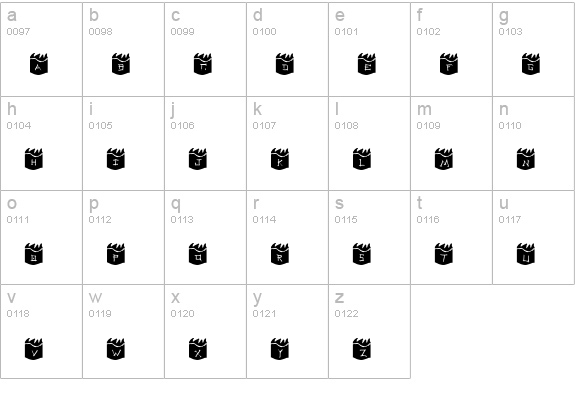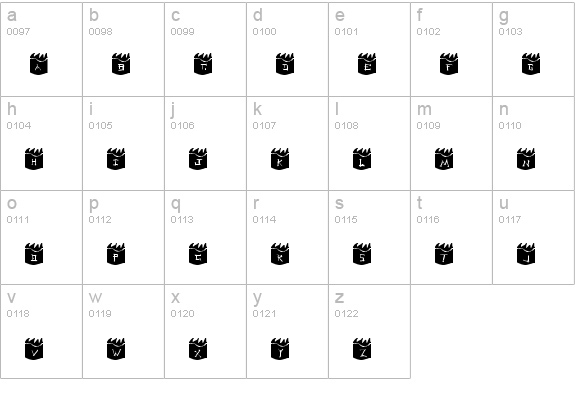
Dragoon Font Details
The Dragoon font is a versatile and elegant typeface that exudes sophistication and style. Its sleek lines and modern aesthetic make it perfect for a wide range of design projects, from branding and marketing materials to invitations and social media graphics. This font is designed to make a statement and leave a lasting impression on your audience. Best of all, the Dragoon font is completely free to download! You can easily access this stunning typeface at FontsMarket.com, where you can explore a vast collection of high-quality fonts for all your creative needs. Don't miss out on the opportunity to enhance your designs with the beautiful Dragoon font – download it today and elevate your projects to the next level.